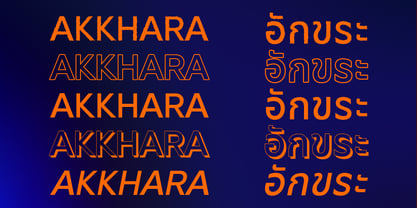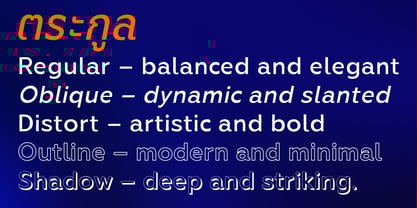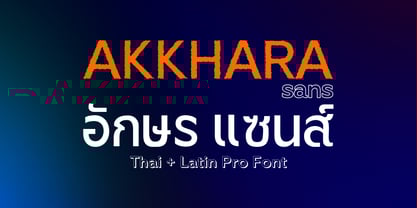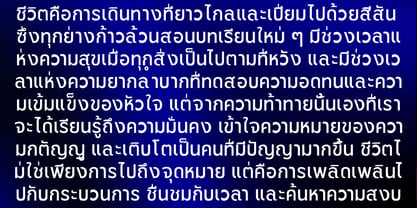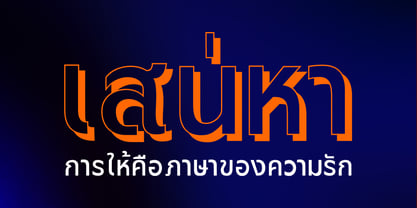
Akkhara
by Kaidosan
The Akkhara Font Family was designed by Muhammad Ansari and published by Kaidosan. Akkhara contains 5 styles and family package options.
Akkhara Sans is a professional typeface designed to bring a perfect balance between modern elegance and outstanding readability for both Thai and Latin scripts. With its clean geometric form and subtle warmth, this font family is ideal for branding, editorial design, packaging, digital typography, and modern user interfaces. The family includes five distinctive styles: Regular – a balanced, elegant style perfect for body text and versatile use. Oblique – a dynamic slanted version for headlines and emphasis. Distort – an expressive and artistic variation for creative projects. Outline – a modern, minimal line version for stylish visual impact. Shadow – adds depth and dimension for eye-catching compositions. Featuring full support for both Thai and Latin characters, Akkhara Sans ensures visual harmony across languages without losing the cultural essence of Thai letterforms. Every glyph is carefully crafted with consistent proportions, delivering sharp performance both in print and on screen. Whether used for creative projects, corporate branding, or refined visual identities, Akkhara Sans is the perfect choice for designers who value style, clarity, and flexibility in modern typography.